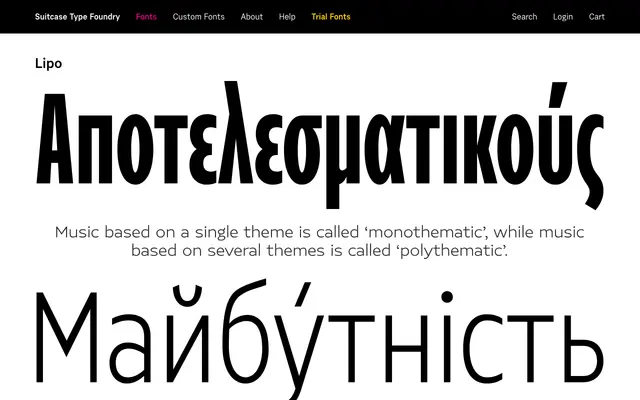
A serif family from Suitcase Type Foundry with a companion text cut optimised for smaller sizes and continuous reading.
Lipo comes in two related families: the display-oriented Lipo and the text-specific Lipo Text, which together cover a practical range of editorial and publishing applications. The Text cut, offered in 14 fonts, is tailored for smaller optical sizes where legibility under pressure matters. Produced by the Czech foundry Suitcase Type, it sits within a tradition of carefully engineered Central European text type.
The related family 'Lipo Text' suggests a text-optimised serif designed for sustained reading, typical of contemporary Central European type foundry output.